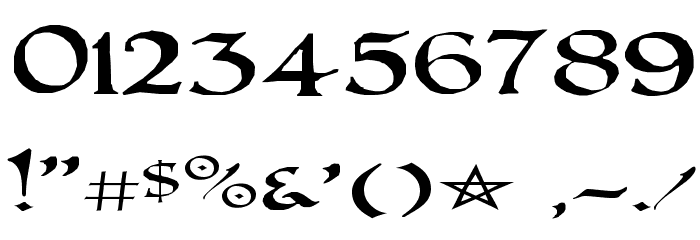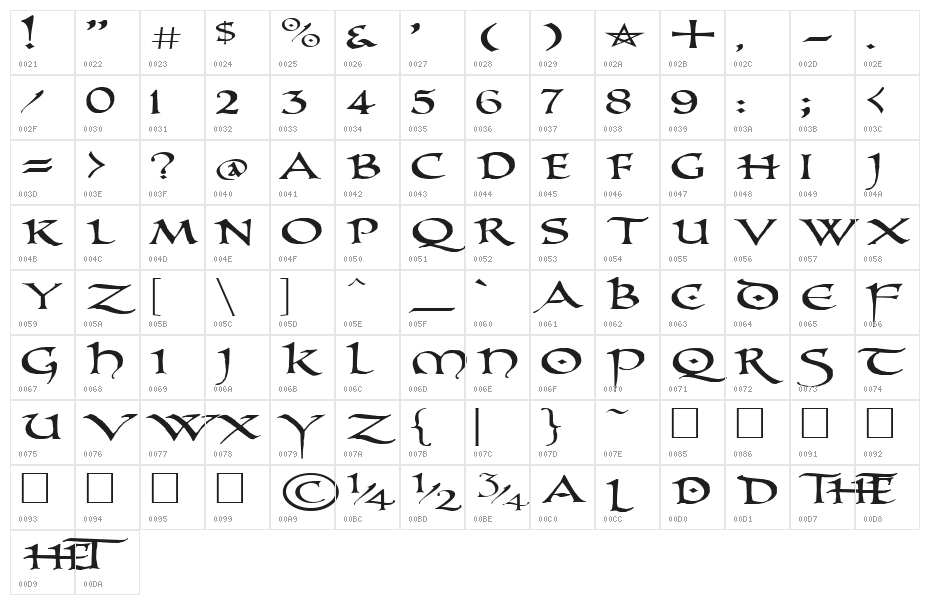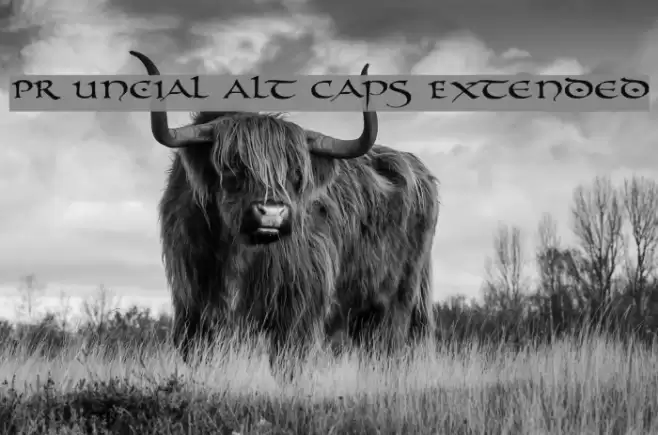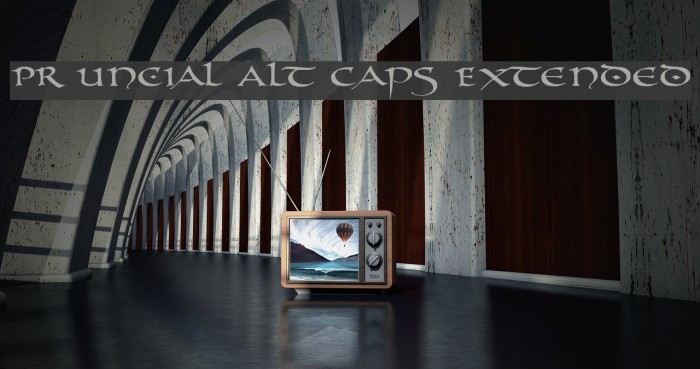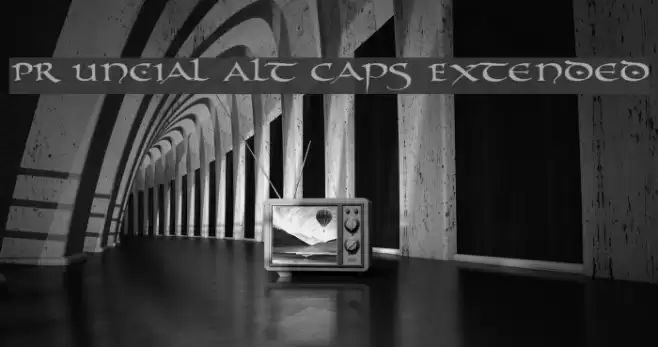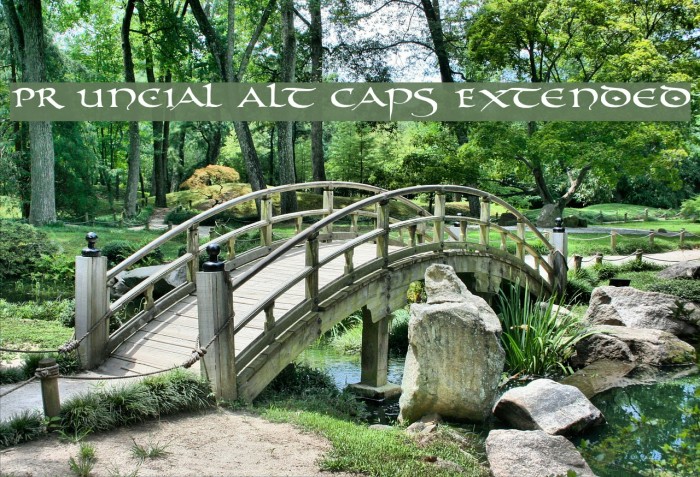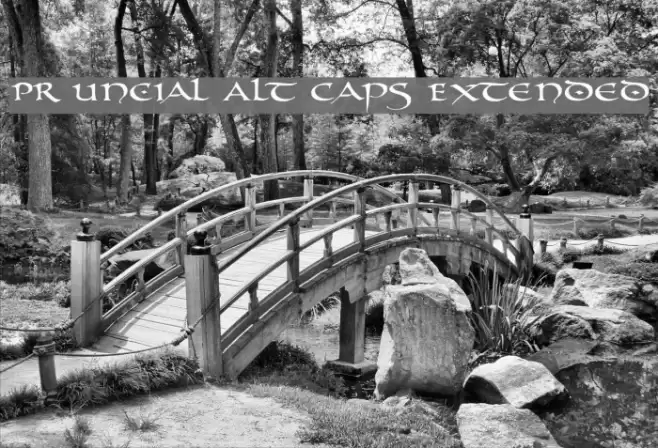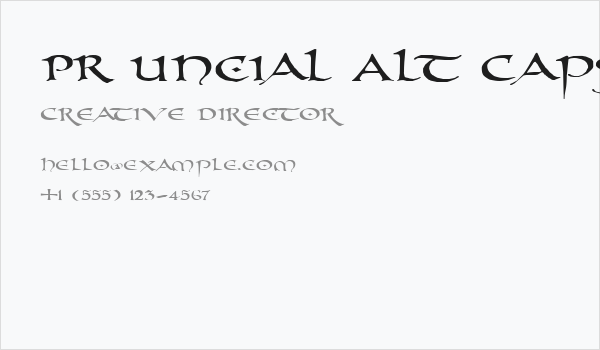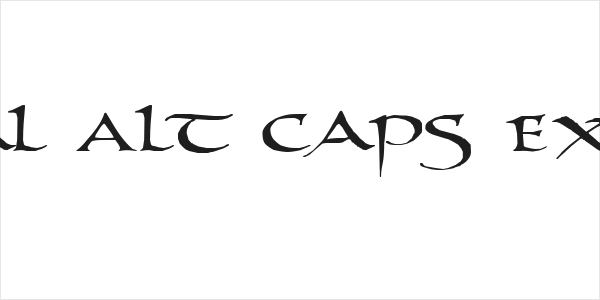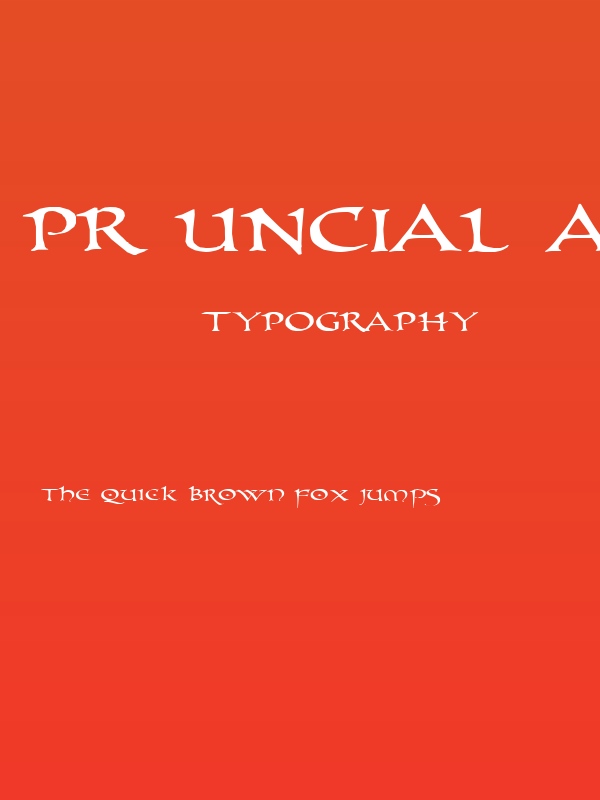
PR Uncial Alt Caps Extended Font
PR Uncial Alt Caps Extended Description
This font features a distinct medieval and gothic style, characterized by its sharp, angular lines and decorative serifs. The uppercase letters are bold and commanding, with a unique flair that evokes historical manuscripts. The lowercase letters maintain the same stylistic elements, offering a cohesive look across different text cases. Numbers are equally stylized, with a consistent weight and form that complements the alphabet. Special characters are designed to match the overall aesthetic, making this font suitable for themed projects. The font's intricate design and historical inspiration make it ideal for creating a dramatic and impactful visual presence.
| Use Case | Headlines, Logos, Decorative text |
| Proposed Projects | Ideal for historical themed designs, fantasy book covers, medieval event invitations, and decorative signage. |